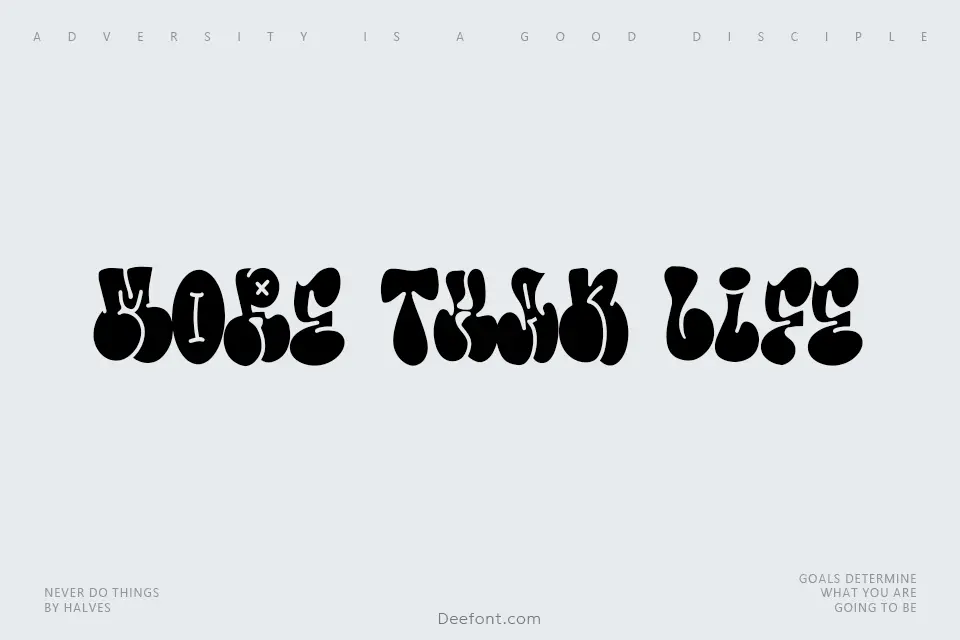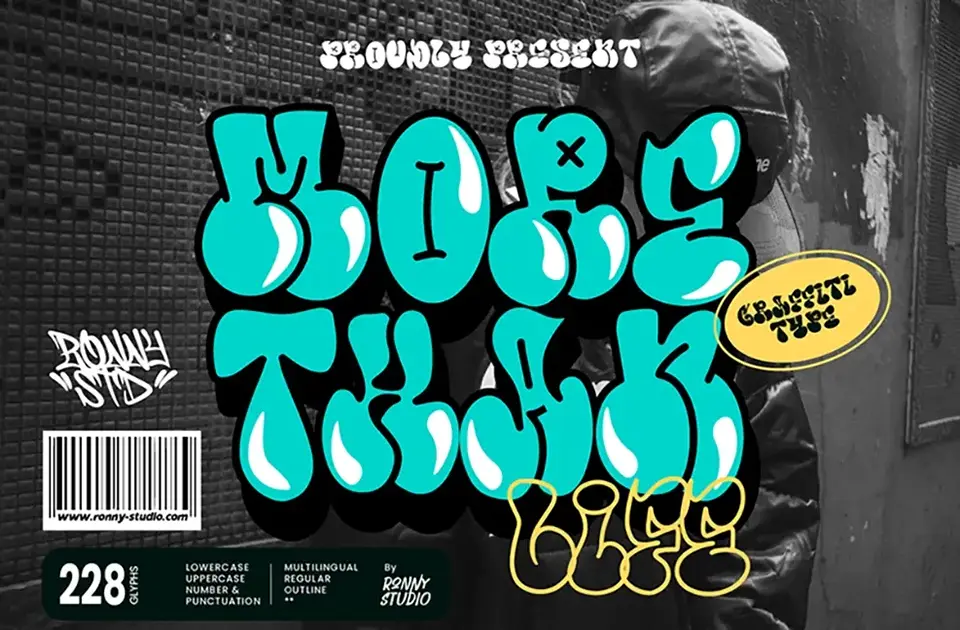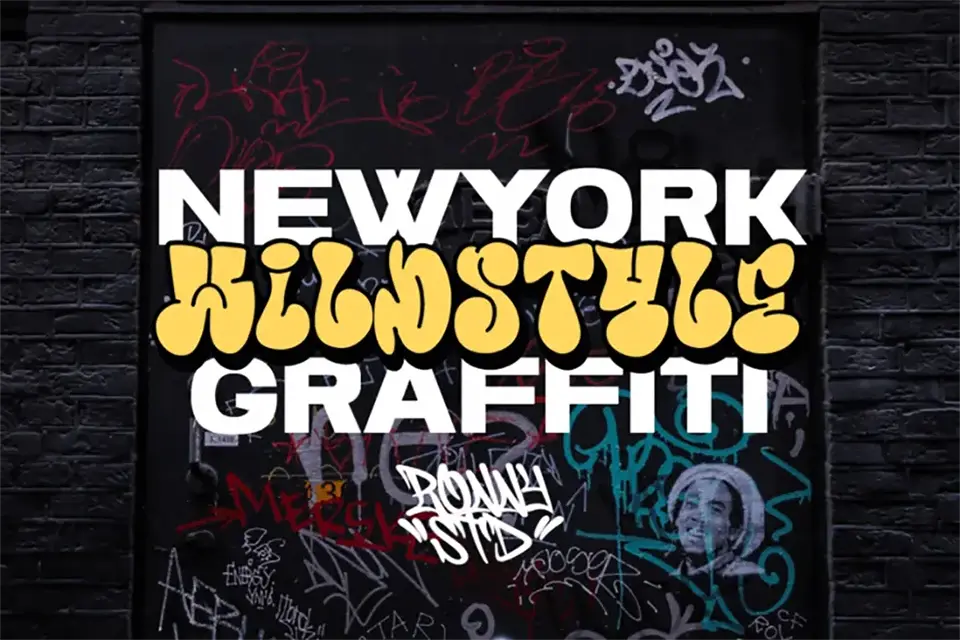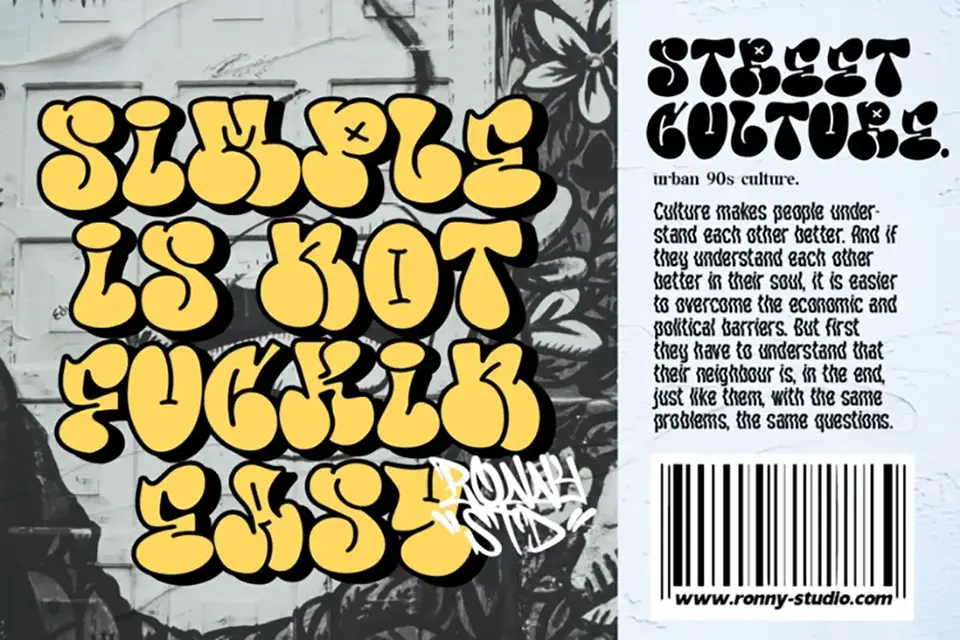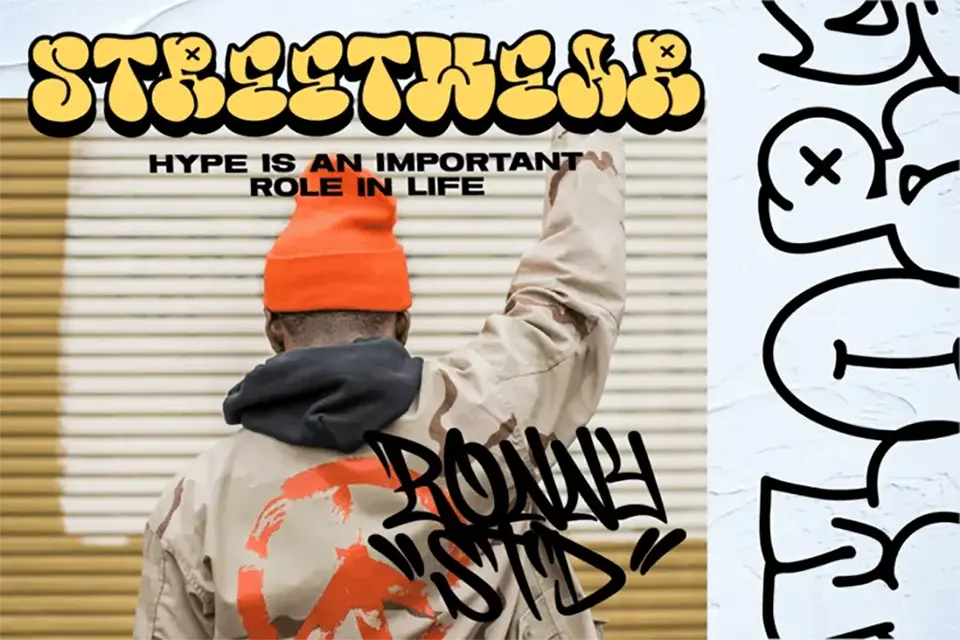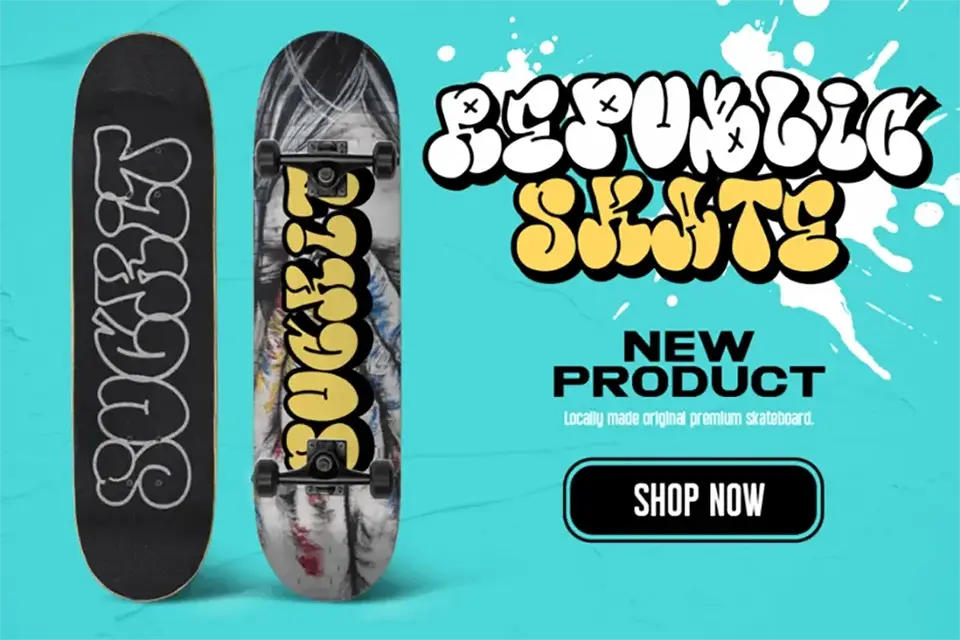
More Than Life Font
More Than Life is a bold bubble graffiti display font that brings authentic street art vibes to your designs. Created with dynamic energy and urban spirit, this typeface features rounded, inflated letters that create a three-dimensional effect. Perfect for eye-catching headlines, logos, posters, and streetwear branding, it embodies the rebellious essence of hip-hop culture and graffiti art. With its condensed width and striking silhouette, this versatile font captures the raw energy of urban street culture, making every project stand out. Ideal for designers seeking to add authentic street culture flair to their creative compositions.